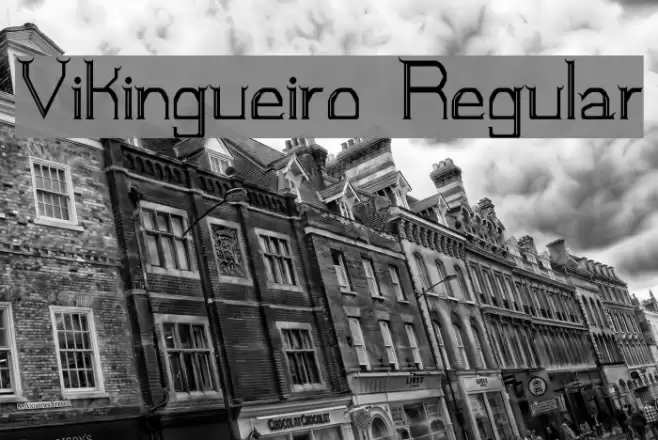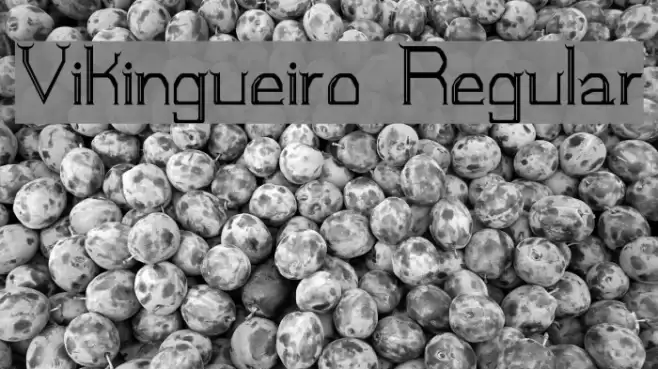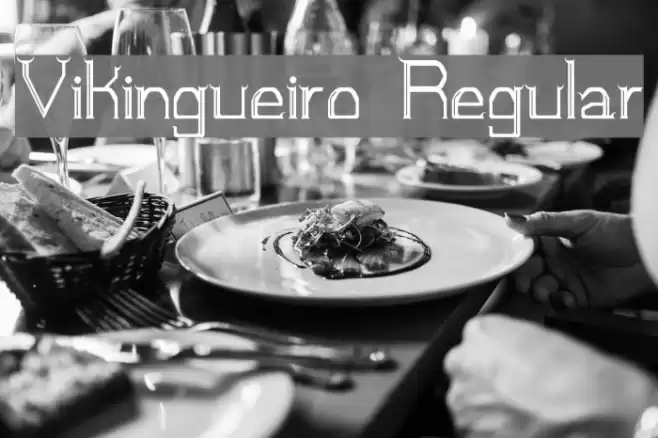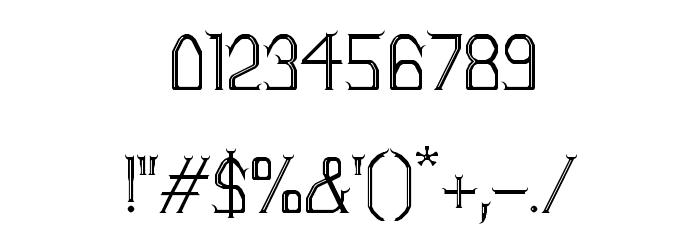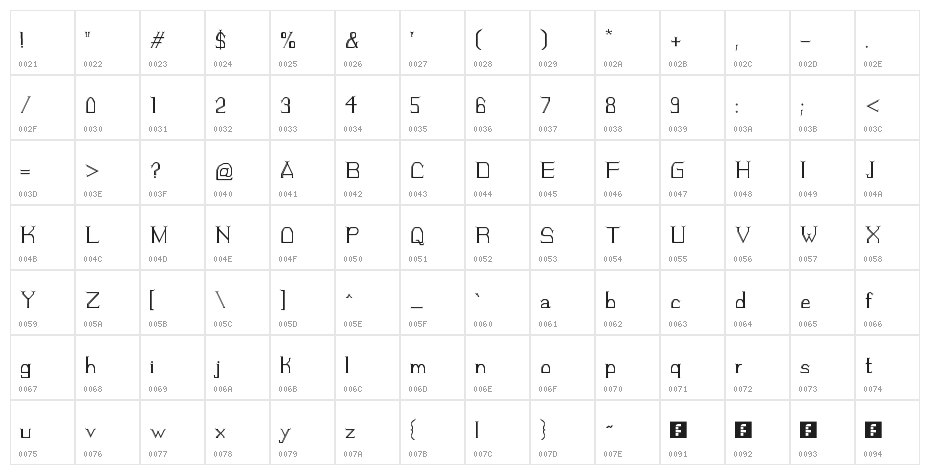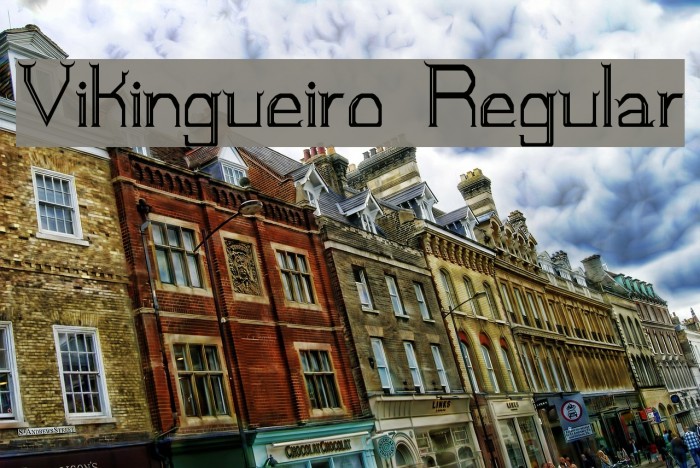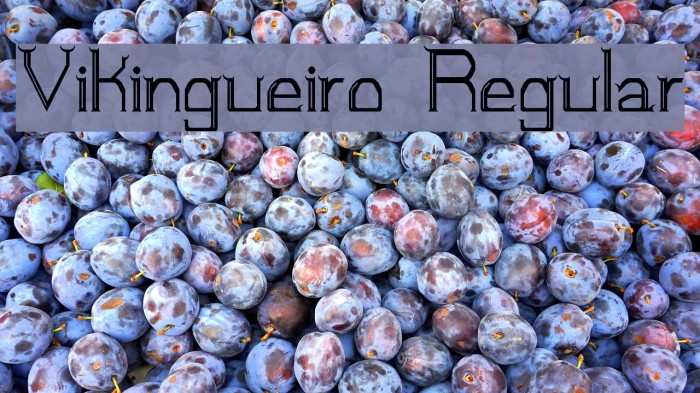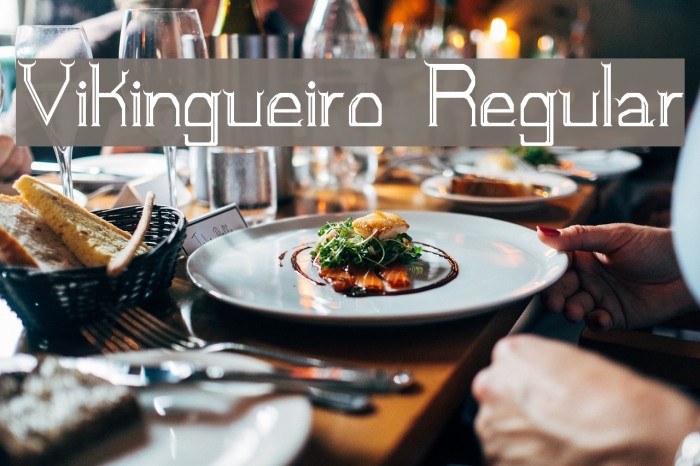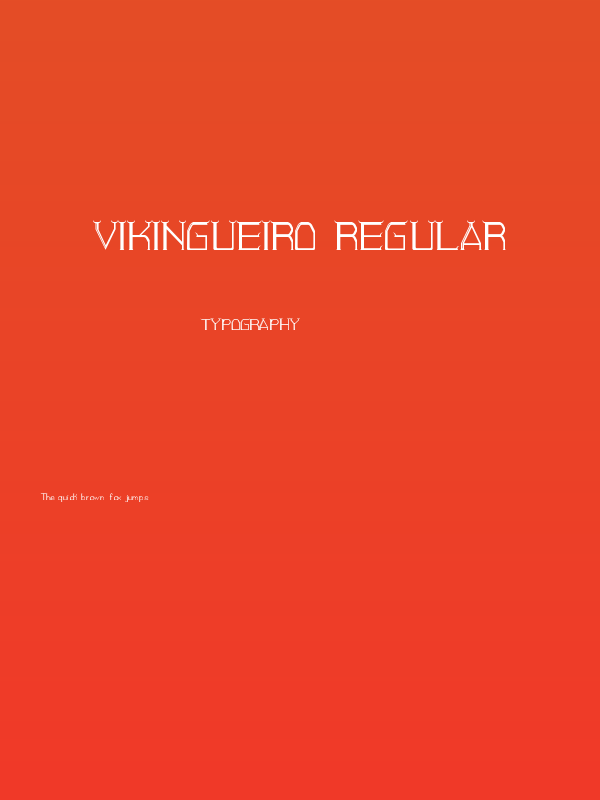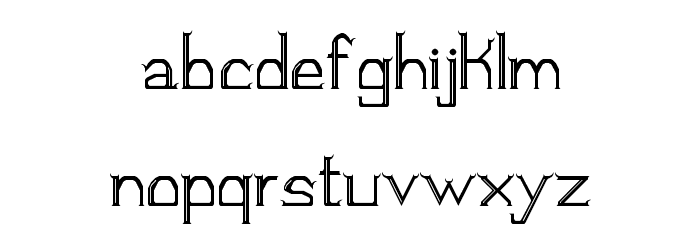
Vikingueiro Regular Font
Vikingueiro Regular Description
This font features a unique, decorative style with sharp, angular lines and intricate details reminiscent of ancient runic inscriptions. The uppercase letters are bold and commanding, while the lowercase letters maintain a consistent design with slightly softer edges. Numbers and special characters follow the same stylistic approach, ensuring a cohesive look across all text elements. The font's design is both modern and historical, making it suitable for projects that require a touch of the past with a contemporary twist.
A decorative font with angular, runic-inspired details from Uncategorized fonts.
- Proposed Projects: Ideal for fantasy-themed designs, historical projects, book covers, and branding that requires a unique, ancient aesthetic.